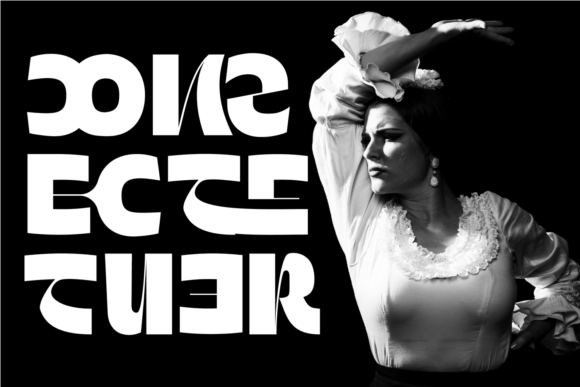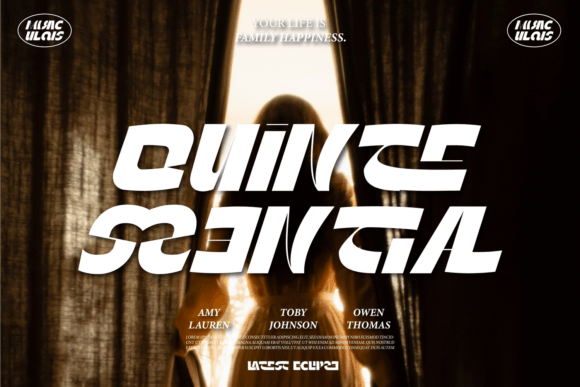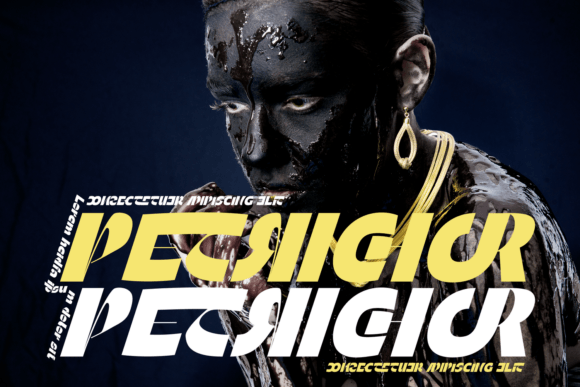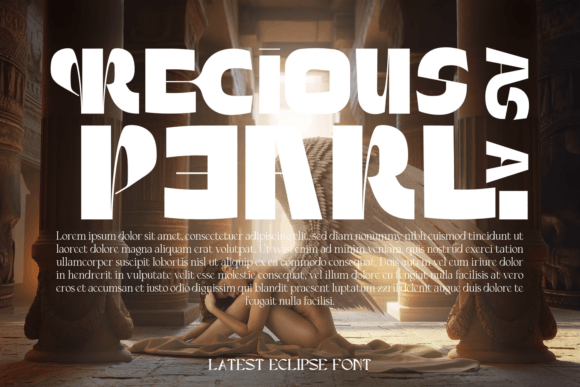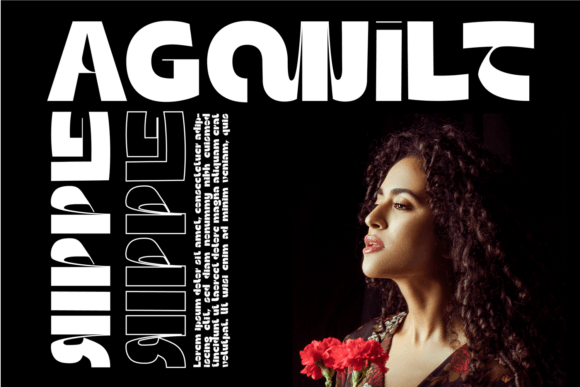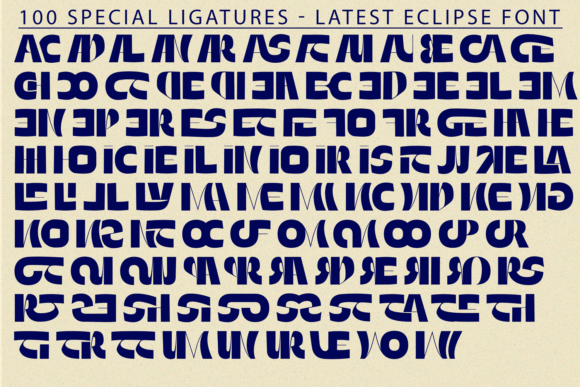
Introduction to Latest Eclipse Font
As a designer, you’ve likely experienced that moment when you’re working on a creative project and the perfect font just seems to be out of reach. The design is almost complete, but something’s missing – a spark of modernity, a dash of futurism, a hint of sophistication. That’s where the Latest Eclipse Font comes in, a game-changing display font that’s sure to elevate your designs to the next level.
| 👤 Author | 177Studio |
With its sleek, high-quality aesthetic and transparent background, the Latest Eclipse Font is the ultimate design resource for creatives. Whether you’re working on a brochure, a video, or a logo, this font is the perfect addition to your toolkit. And the best part? It’s available for free download, making it an invaluable resource for designers on a budget.
Key Features of Latest Eclipse Font
- High-quality design: The Latest Eclipse Font is crafted with attention to detail, ensuring a professional and sleek appearance in any creative project.
- Transparent background: This font features a transparent background, allowing designers to easily place it over any image or design without any distractions.
- Resolution-independent: With a resolution-independent design, the Latest Eclipse Font can be scaled up or down without losing any quality, ensuring it remains crisp and clear at any size.
- Perfect for design resources: The Latest Eclipse Font is an excellent addition to any designer’s toolkit, offering a unique and versatile design element for creative projects.
Honest Review: Latest Eclipse Font
As a designer, I’m always on the lookout for high-quality fonts that can elevate my creative projects. The Latest Eclipse Font has been making waves in the design community, so I decided to put it to the test.
- ✨ Unique and sleek design that’s perfect for modern projects
- ✨ Transparent background, allowing for seamless integration with any design element
One of the standout features of the Latest Eclipse Font is its versatility. It’s perfect for use in logos, branding, and even digital products. The font’s clean lines and modern aesthetic make it an excellent choice for designers looking to create a high-end feel.
- ⚠️ Limited character set, which may not be suitable for complex text-based projects
- ⚠️ May not be as readable on smaller screen sizes or low-resolution displays
Overall, I’m impressed with the Latest Eclipse Font. While it has some limitations, its unique design and high-quality feel make it a valuable addition to any design resource collection.
How to Use Latest Eclipse Font
The Latest Eclipse Font is a high-quality design resource ideal for creative projects that require a unique and modern aesthetic. Its transparent background makes it easy to overlay on images and videos.
For best results, use the Latest Eclipse Font in conjunction with a high-quality image or video. Experiment with different font sizes and styles to create a unique and eye-catching design.
The Latest Eclipse Font is ideal for creative projects such as:
- Brochures
Q: Does the Latest Eclipse Font have a transparent background?
Yes, the Latest Eclipse Font has a transparent background, making it easy to use on any design or background. This feature allows the font to blend seamlessly with your design, giving you more creative control over your project.